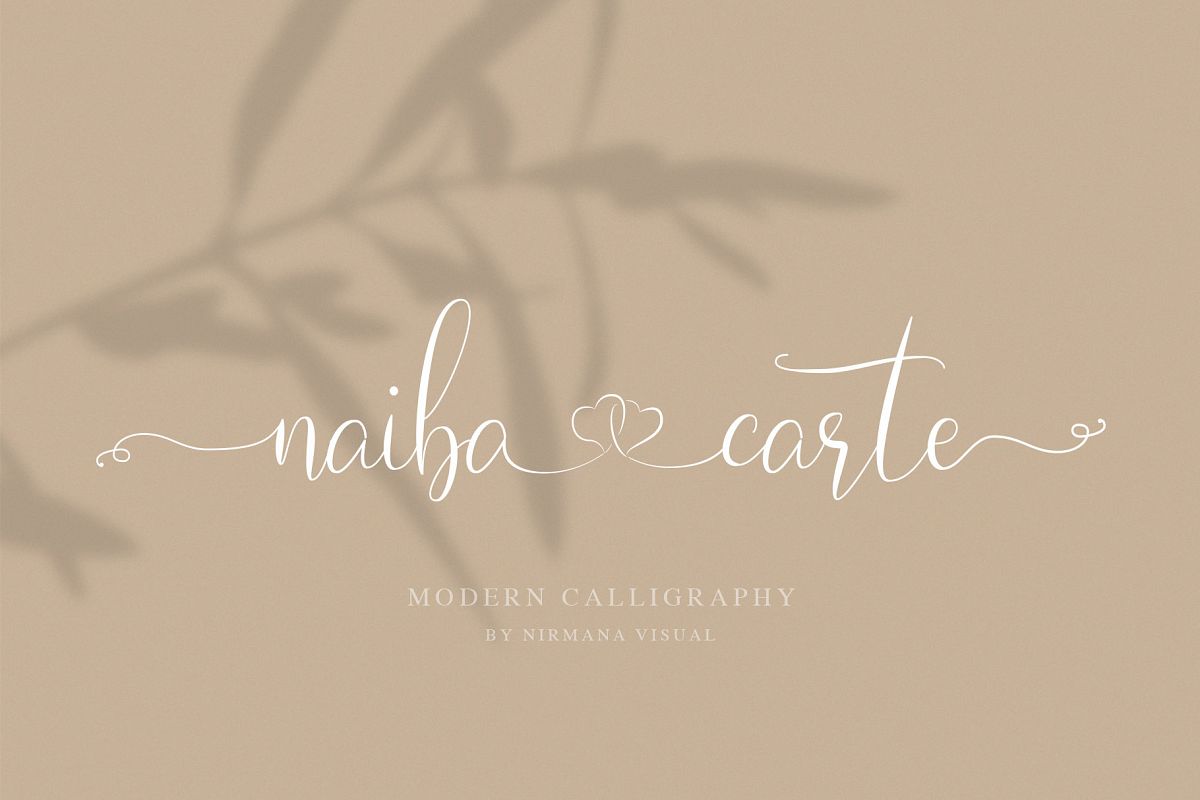
Naibacarte - Lovely Font
Naibacarte inspired by the power of romantic love...
created with passion heart dedicated to make easy use,
perfect for branding, wedding project, logo, quote, etc